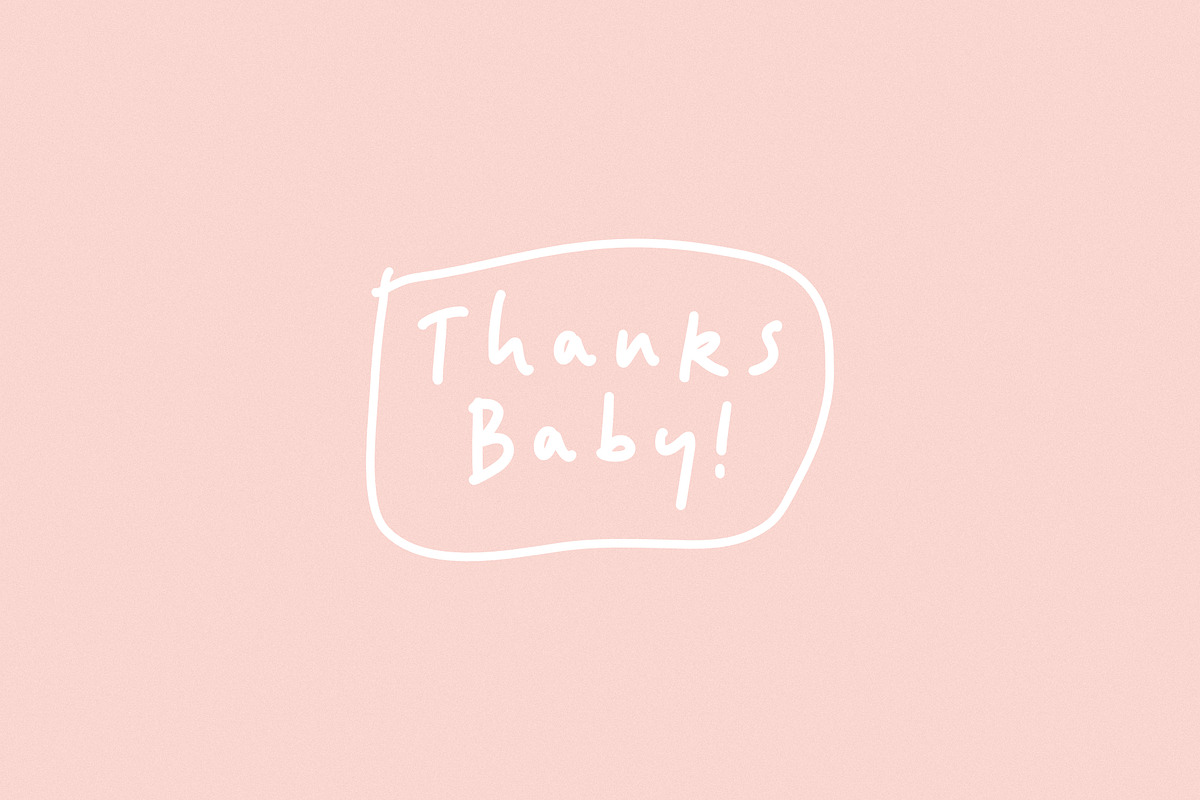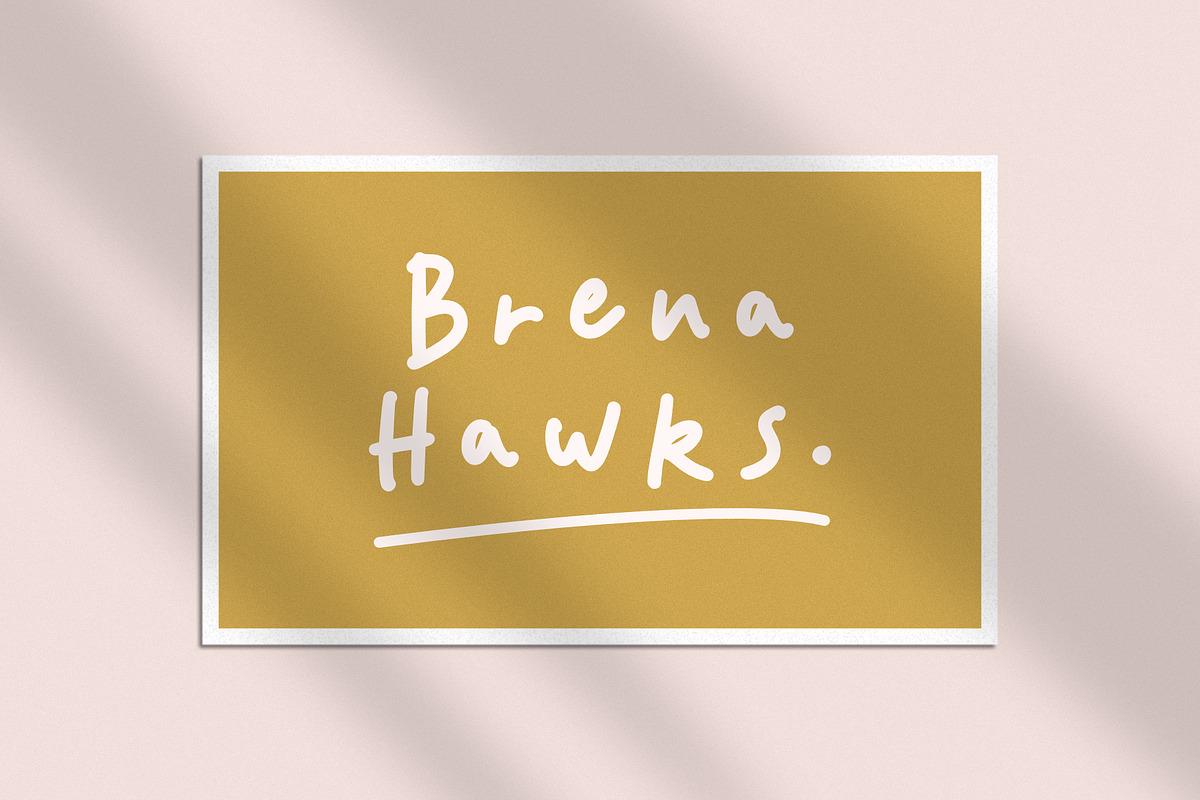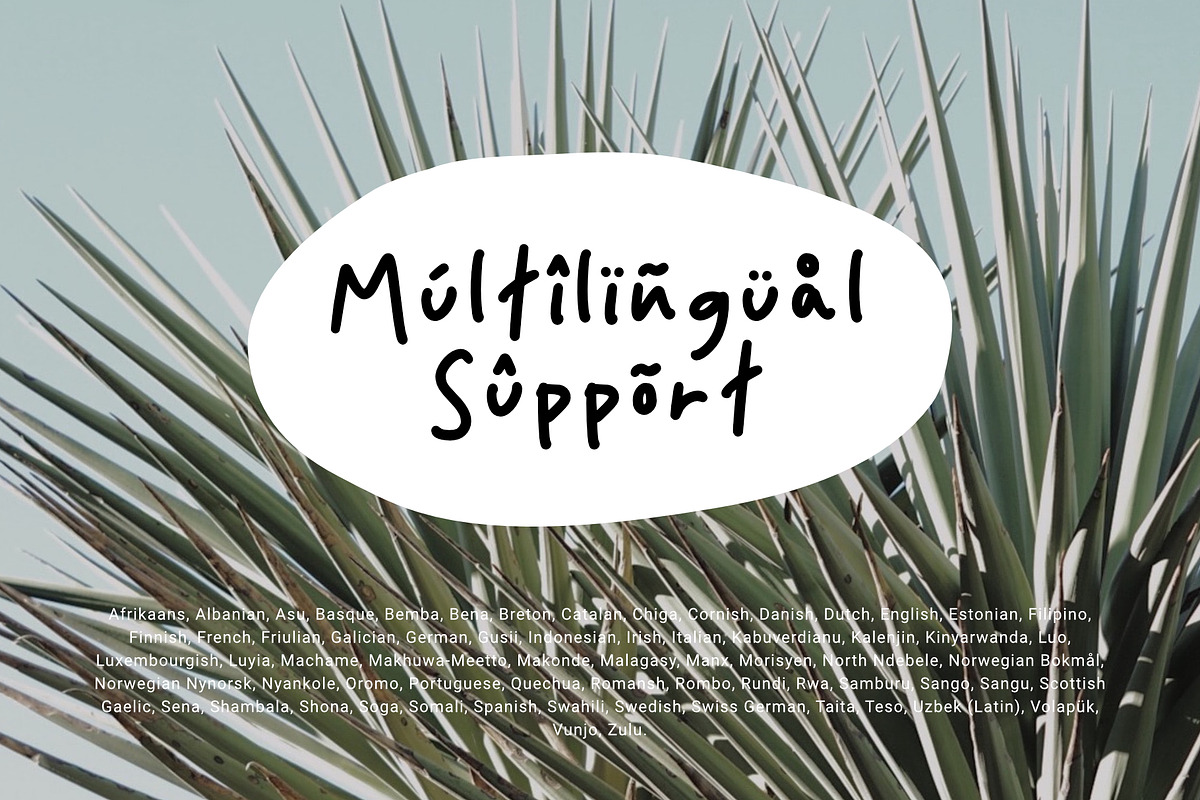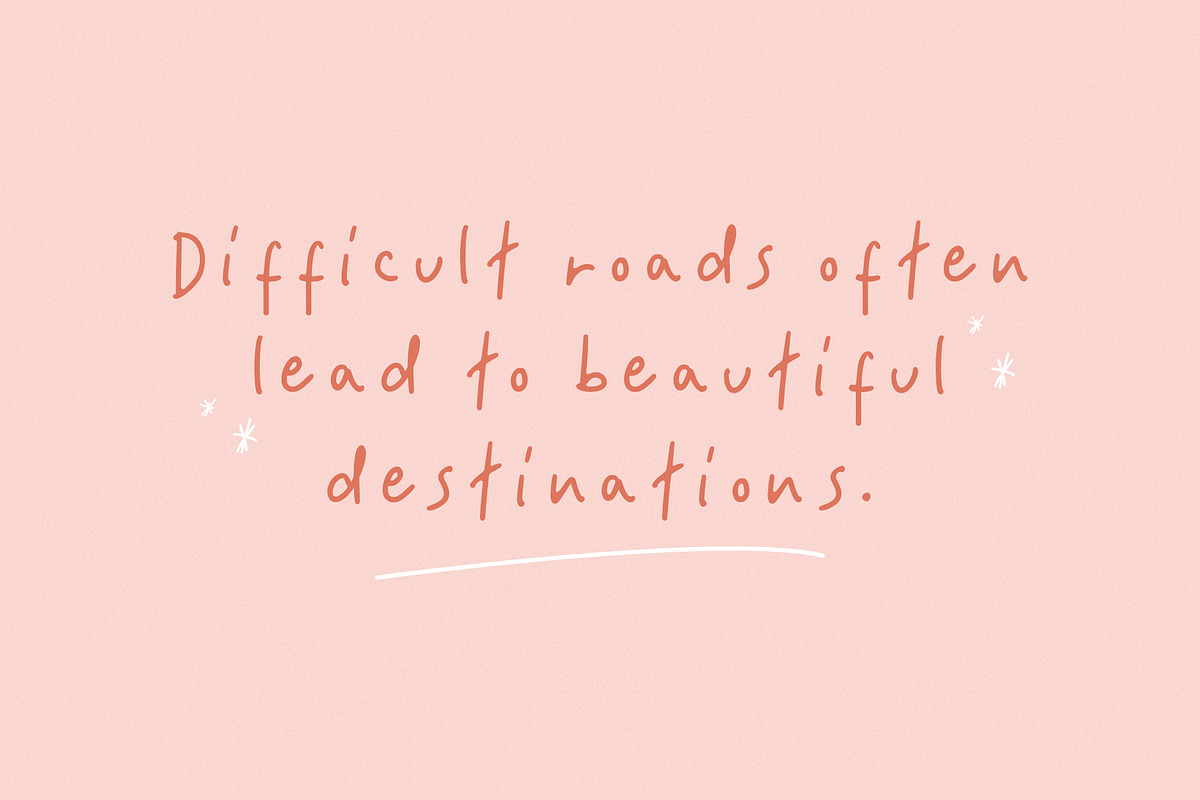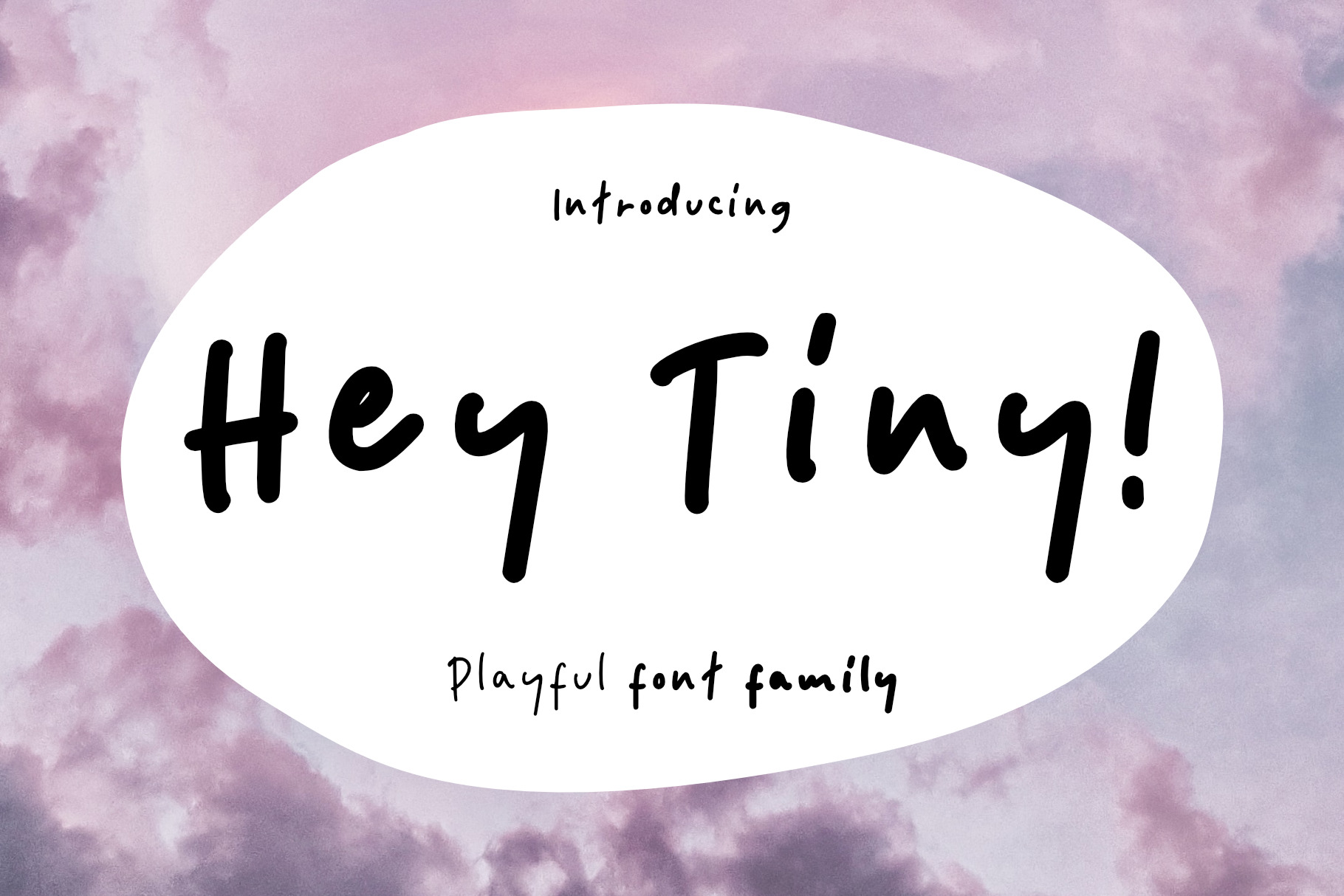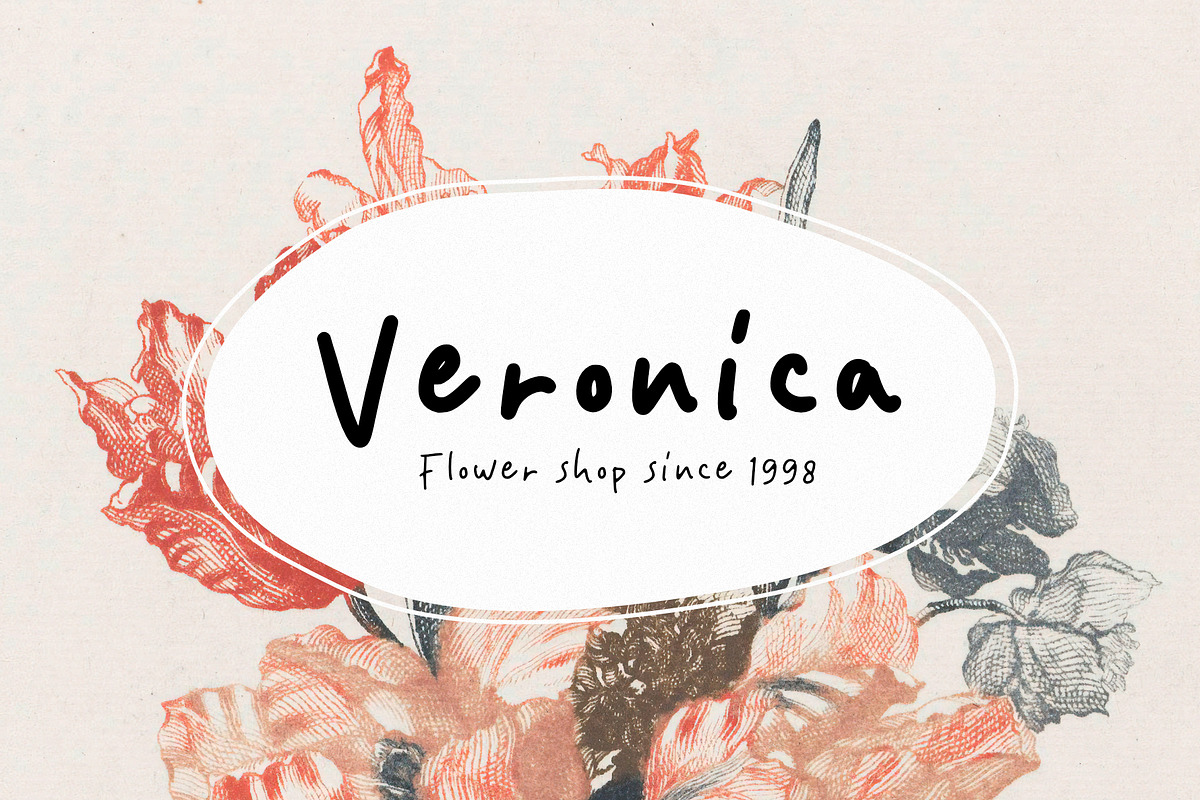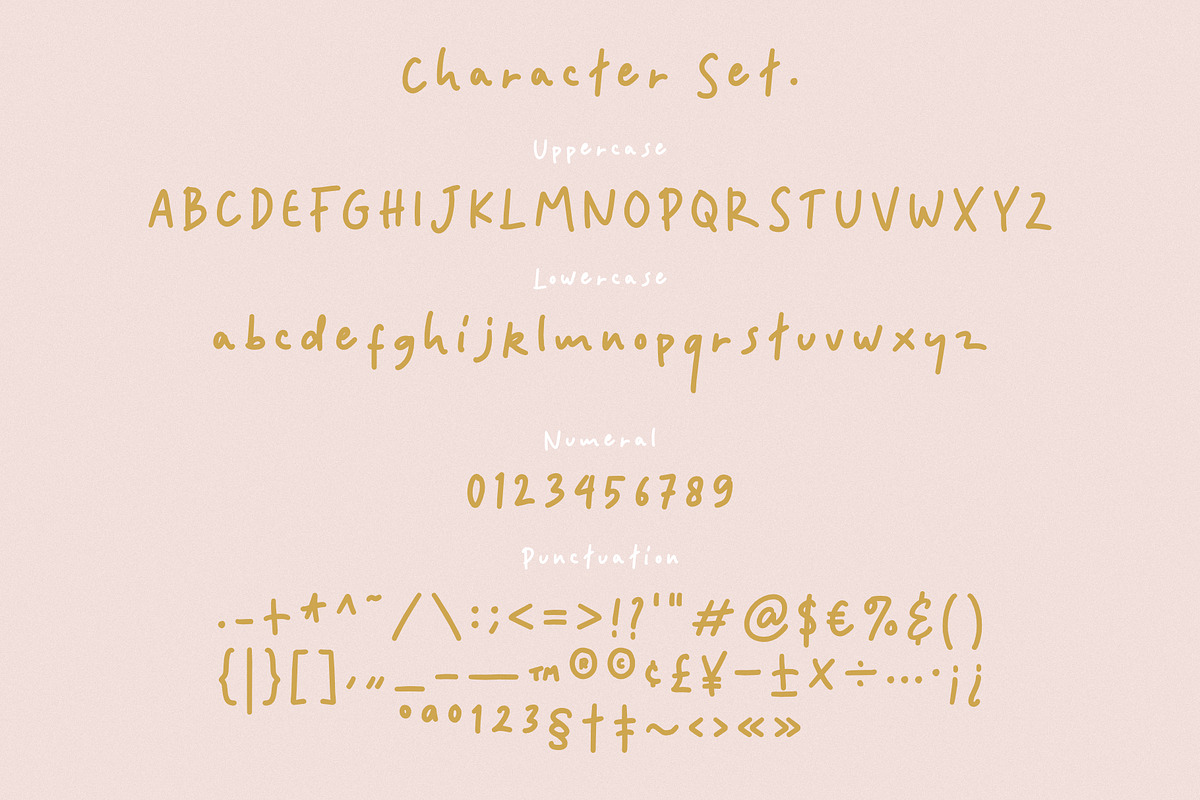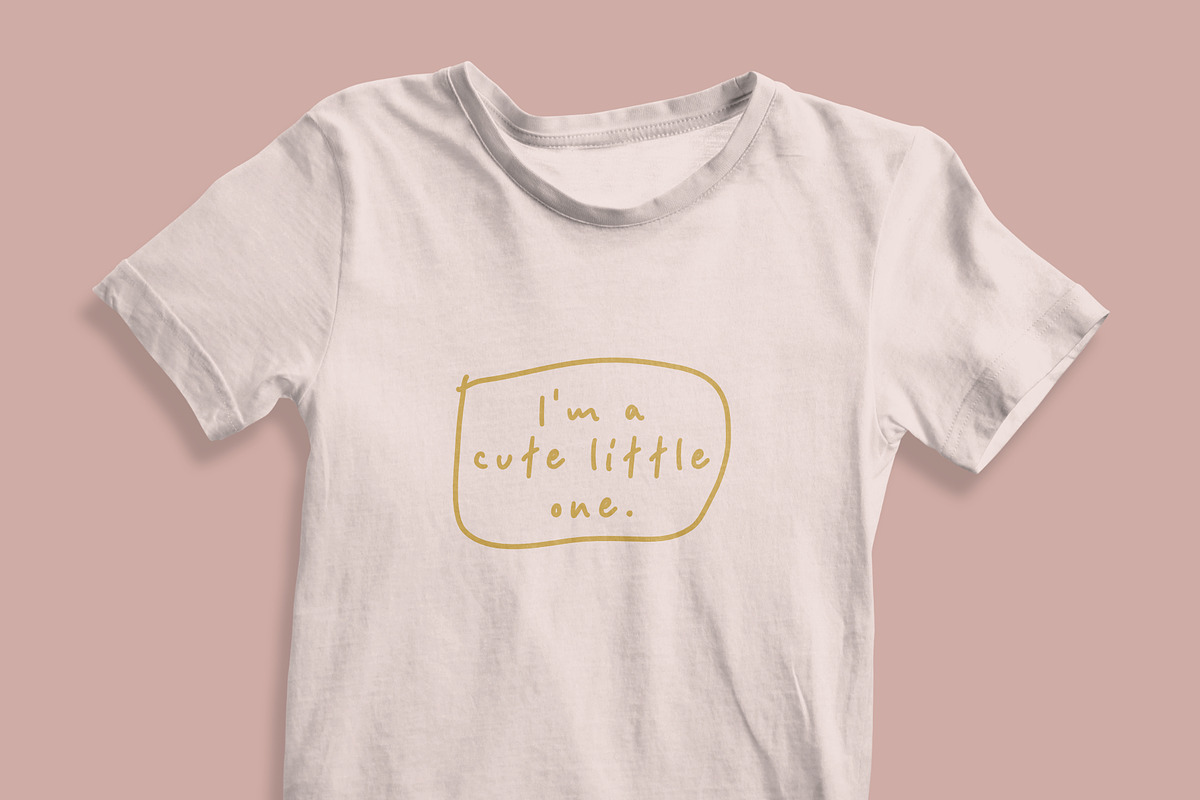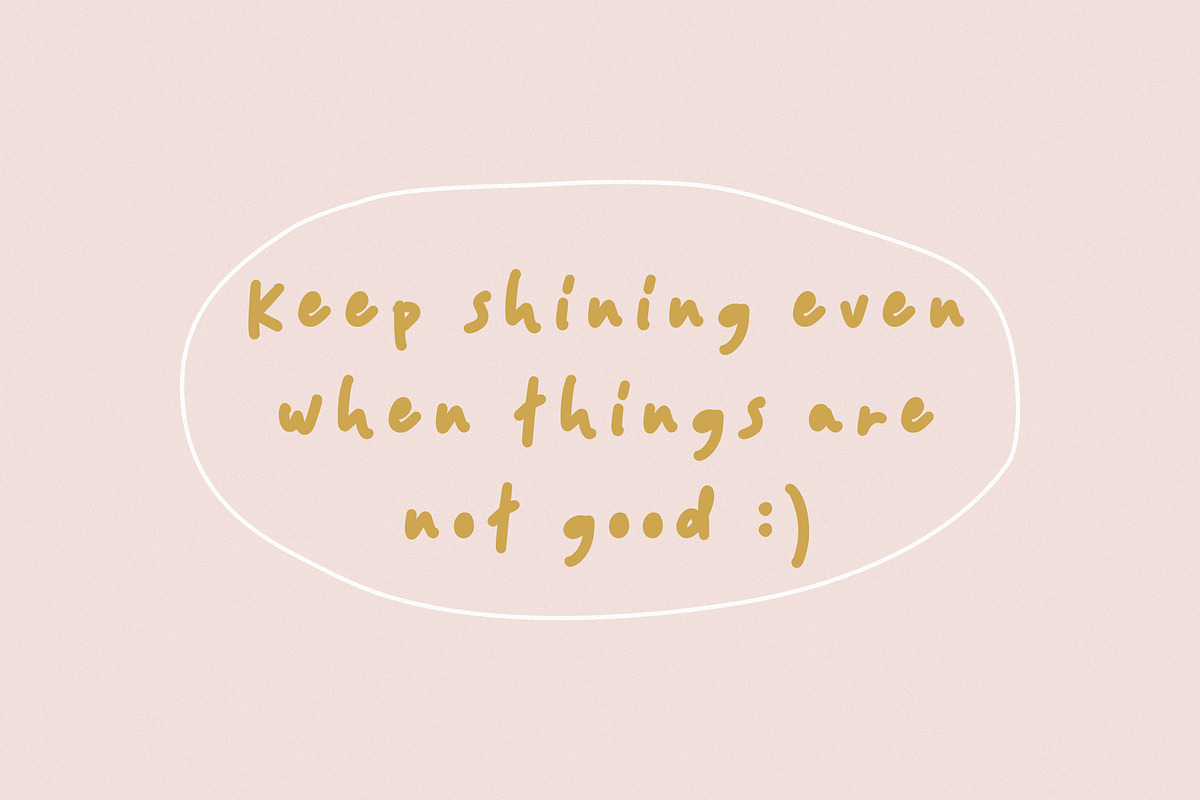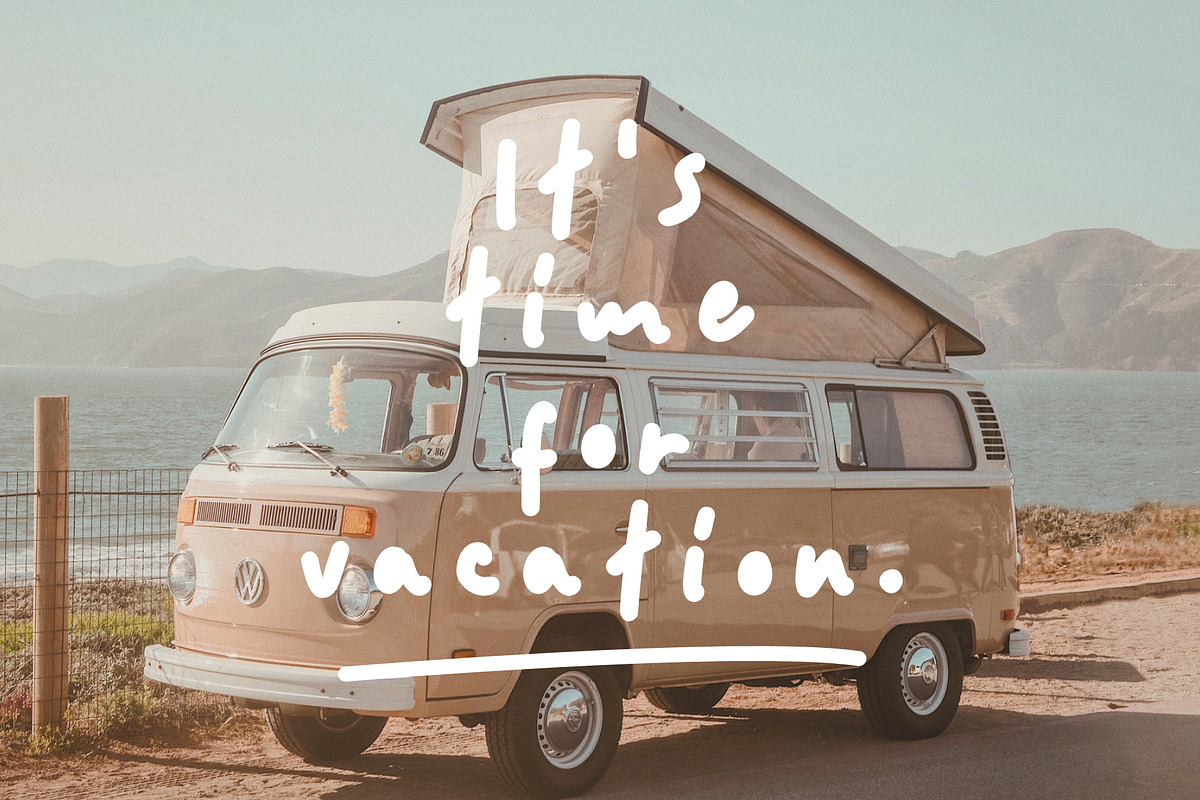
Hey Tiny - Playful Font Family
Handwritten font with 3 weights that are fun and beautiful to look at. Whether applied to quote designs, book covers, logos, food packaging, merchandise, branding or just for social media promotions.
- Features: Uppercase, Lowercase, Numeral, Punctuation & Multilingual.
- Multilingual contained: Afrikaans, Albanian, Asu, Basque, Bemba, Bena, Breton, Catalan, Chiga, Cornish, Danish, Dutch, English, Estonian, Filipino, Finnish, French, Friulian, Galician, German, Gusii, Indonesian, Irish, Italian, Kabuverdianu, Kalenjin, Kinyarwanda, Luo, Luxembourgish, Luyia, Machame, Makhuwa-Meetto, Makonde, Malagasy, Manx, Morisyen, North Ndebele, Norwegian Bokmål, Norwegian Nynorsk, Nyankole, Oromo, Portuguese, Quechua, Romansh, Rombo, Rundi, Rwa, Samburu, Sango, Sangu, Scottish Gaelic, Sena, Shambala, Shona, Soga, Somali, Spanish, Swahili, Swedish, Swiss German, Taita, Teso, Uzbek (Latin), Volapük, Vunjo, Zulu.